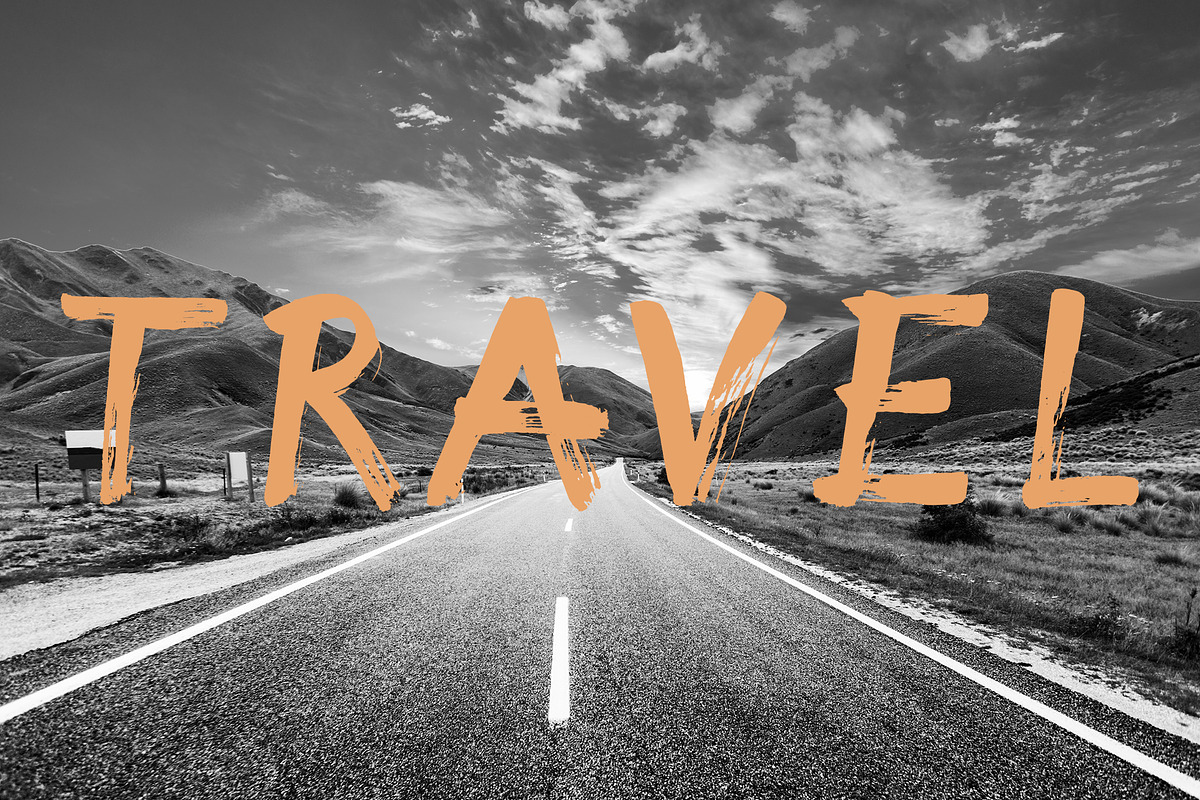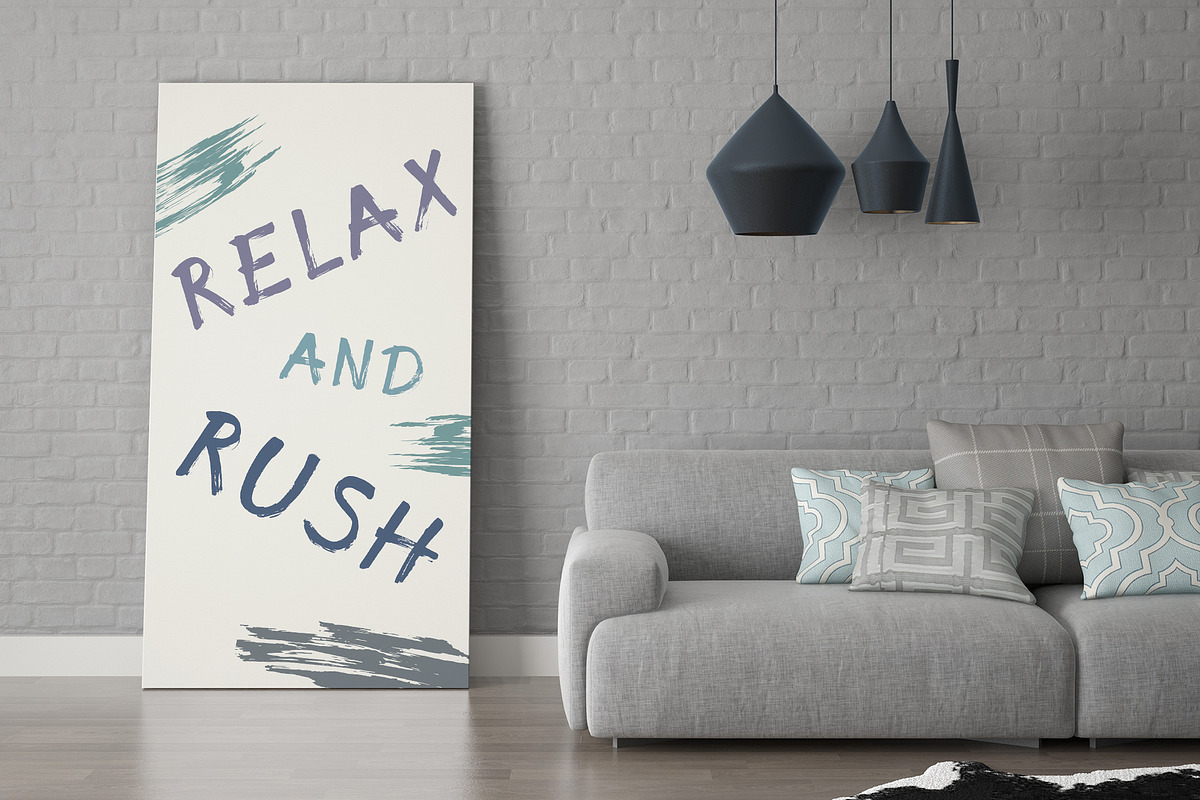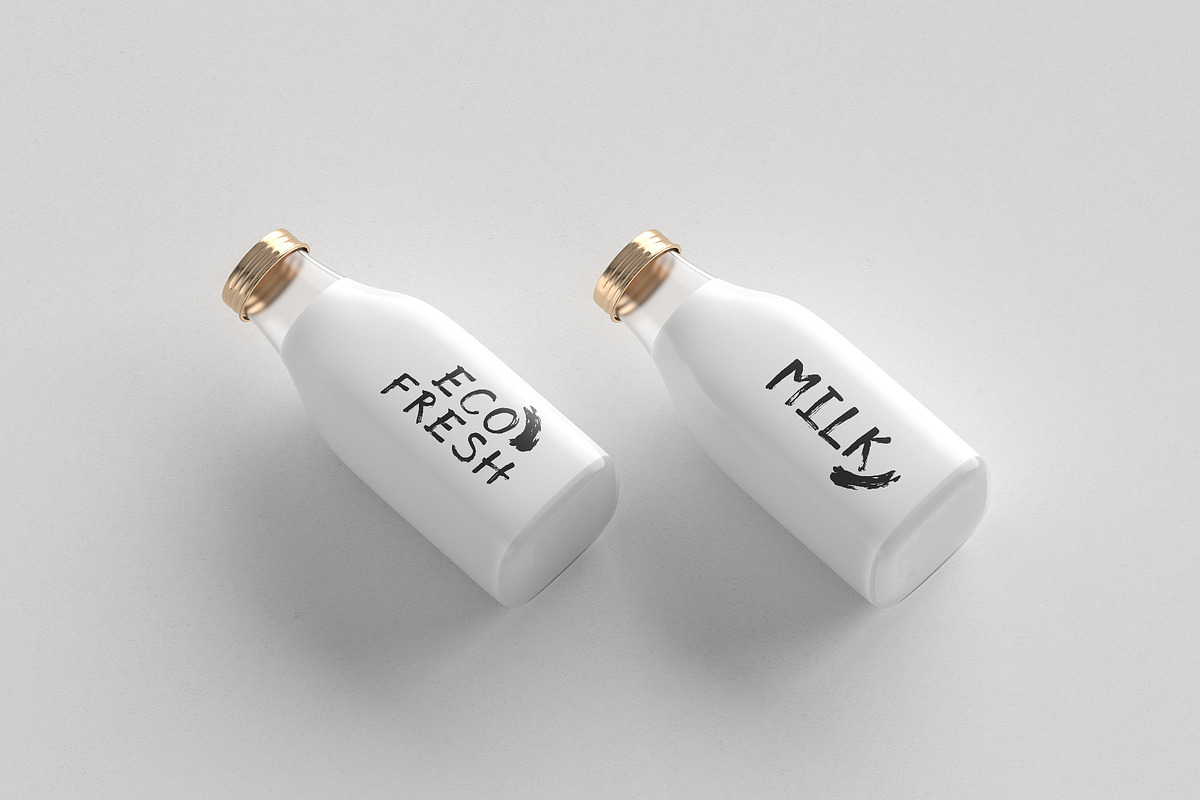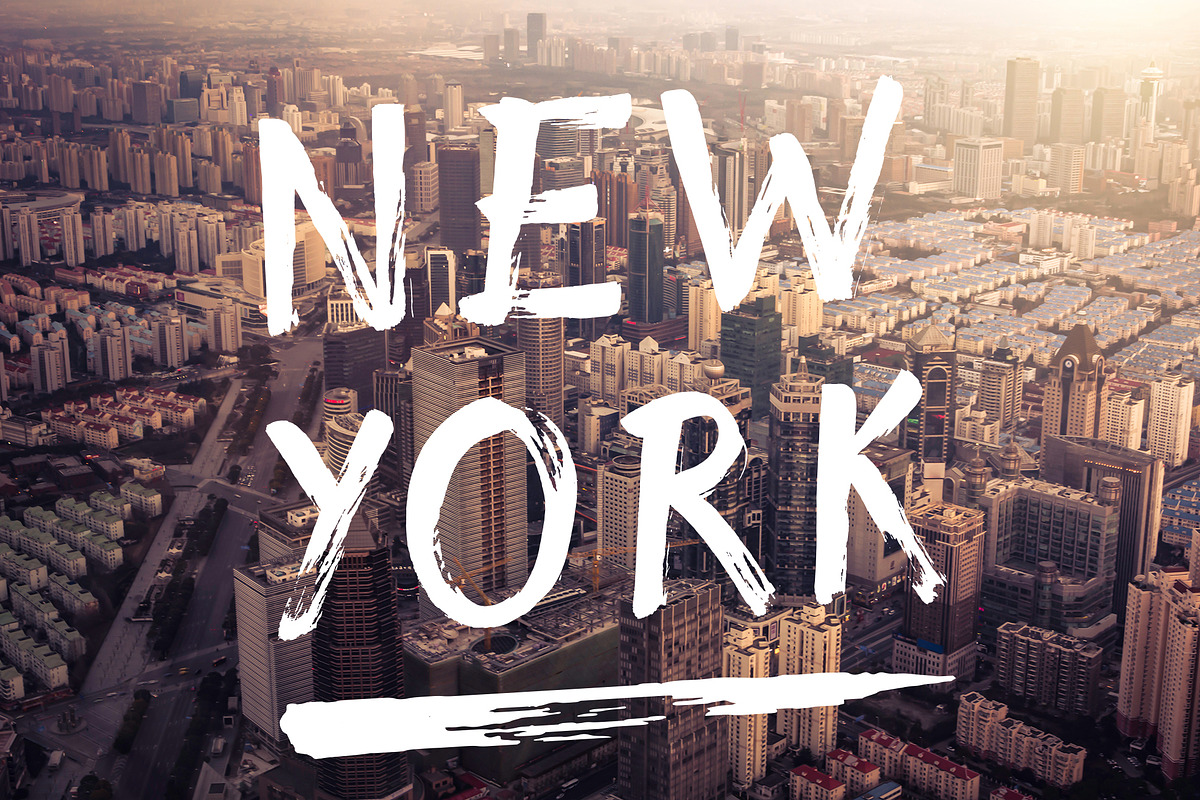
Rush font - brush grunge script font
Rush is bold brush grunge font Open Type, which would be perfect for posters, packaging, advertising, branding and so much more. This font will easily help you to create the best urban designs. Rush font has only uppercase characters.
- Rush font has only uppercase characters.
Rush font - brush grunge script font by Anna Zakharchenko fits naturally into Branding, posters, packaging, typography.